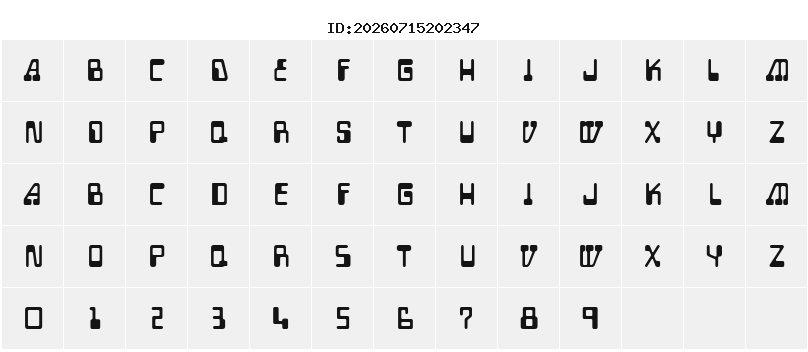
• Font Name: Auto Mission
• Full Font Name: Auto Mission
• Manufacturer: Toto
• Description: Derived from Automation Shaded on page 3 of Dan Solo's Special Effects and Topical Alphabets. - Toto Kyusi, Pilipinas toto@ispx.com.ph September 22, 2011
Auto Mission.ttf is a modern, elegant sans-serif font designed for ultimate readability and visual harmony. Perfect for branding, headlines, web design, and print materials.